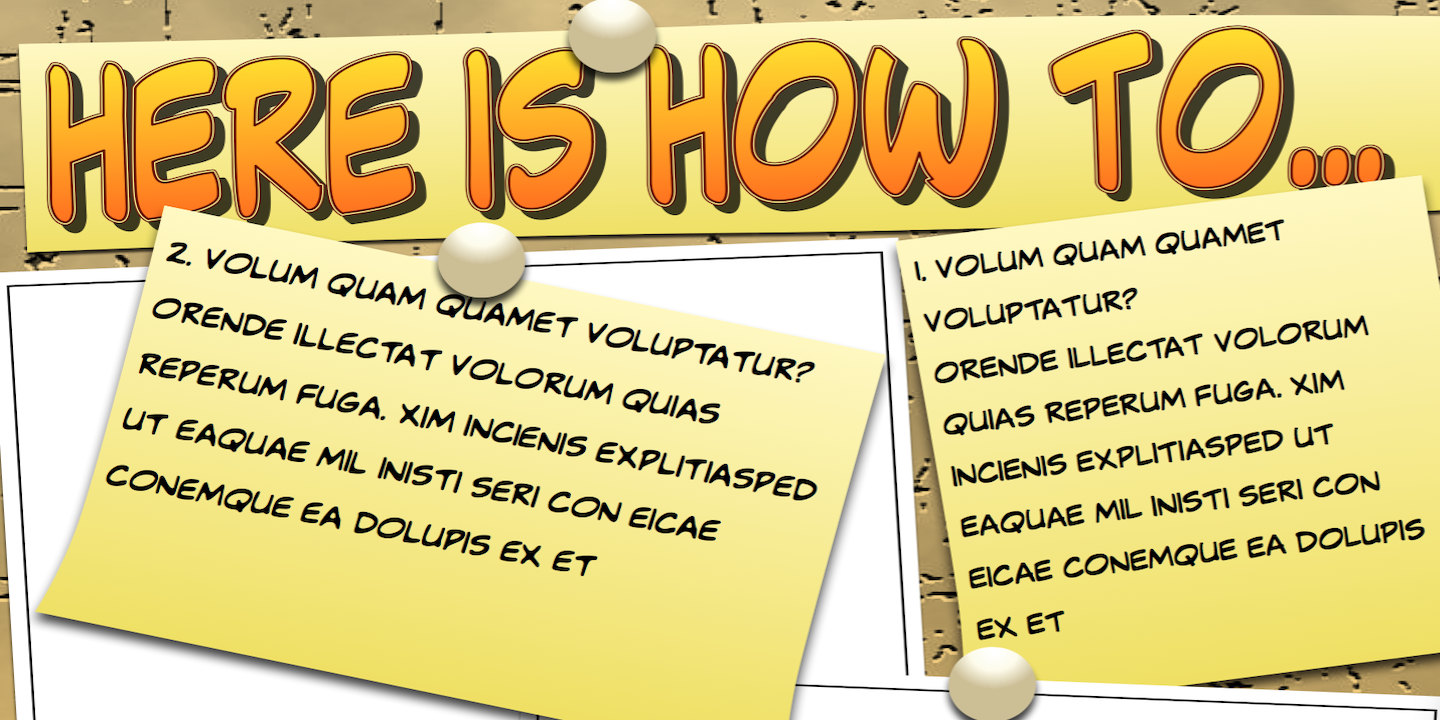
This playful comic font is perfect for children's book illustrations, comic strip designs, cartoon character branding, kids' entertainment marketing, animated movie titles, comic book covers, playground signage, and fun design projects that celebrate childhood imagination and comic book culture.
NorB Comic Font is exciting because it embodies comic book energy with its bouncy letterforms that leap off the page like superhero speech bubbles. The font delivers cartoon sophistication while maintaining comic-perfect readability that brings stories to life and captures playful adventures.
The NorB Comic Font family includes regular and bold versions with comic-themed decorative elements, cartoon symbols, and playful ornaments, providing designers with comprehensive tools for creating comic typography that bursts with personality.
Ready to create comic book magic? NorB Comic Font Free Download offers designers bouncing letterforms that explode with comic energy and cartoon charm. This entertaining typeface combines comic aesthetics with professional functionality, making it ideal for comic publishers, children's entertainment companies, and playful brands. Whether you're designing comic book pages, children's app interfaces, or cartoon character merchandise, this font delivers heroic appeal. The dynamically crafted characters feature comic bounce while maintaining excellent readability across entertainment applications. Perfect for businesses in comic publishing, children's entertainment, animation studios, and playful media that celebrate imagination and storytelling adventure. The font's comic construction creates memorable brand recognition that resonates with comic fans worldwide. Each letter showcases deliberate fun that mirrors the explosive energy of comic book adventures. Download today and unleash comic power in your creative projects with this premium comic font that transforms ordinary text into extraordinary expressions of cartoon magic and the adventurous spirit of NorB Comic Font Free Download entertainment.